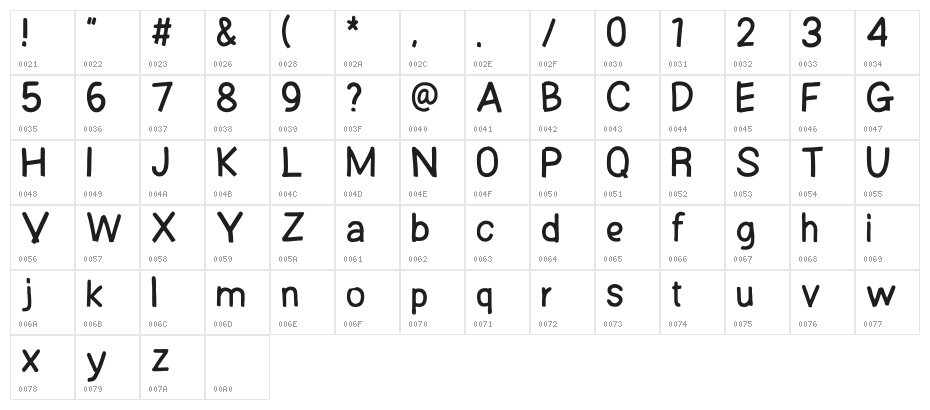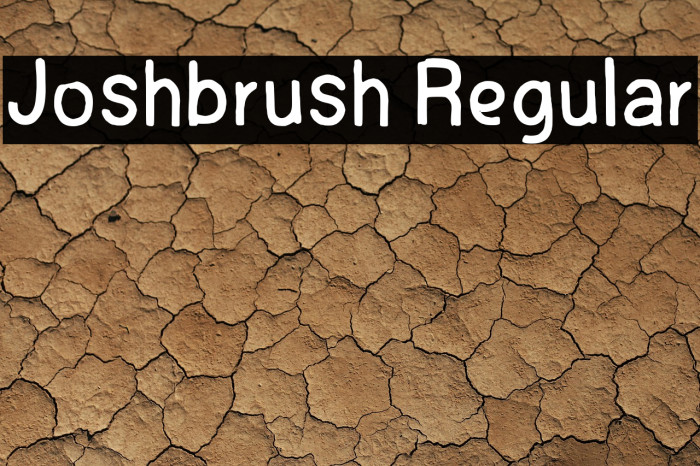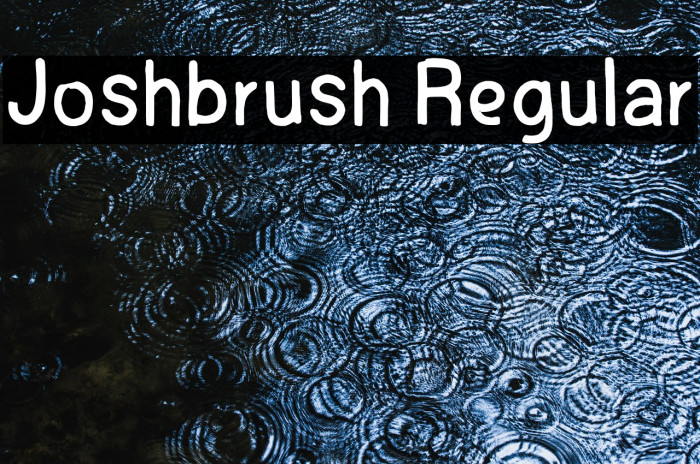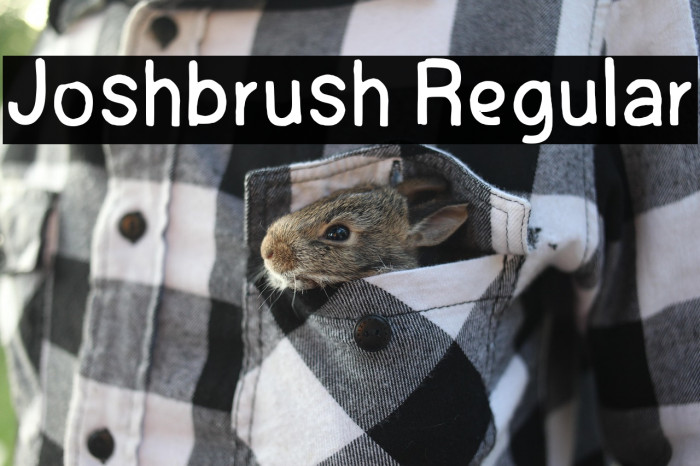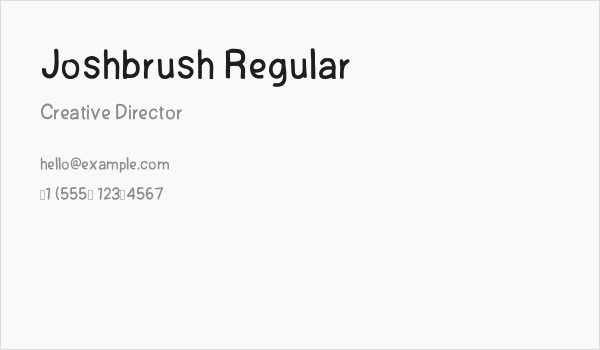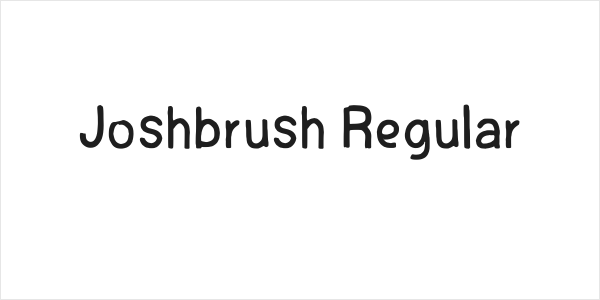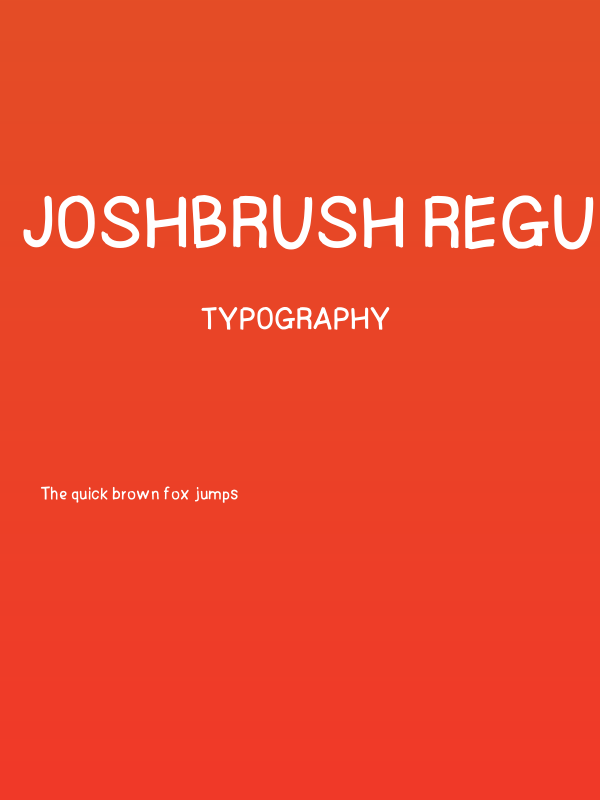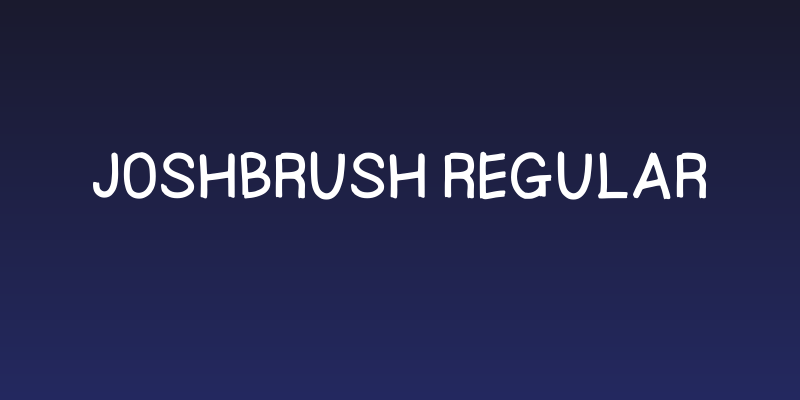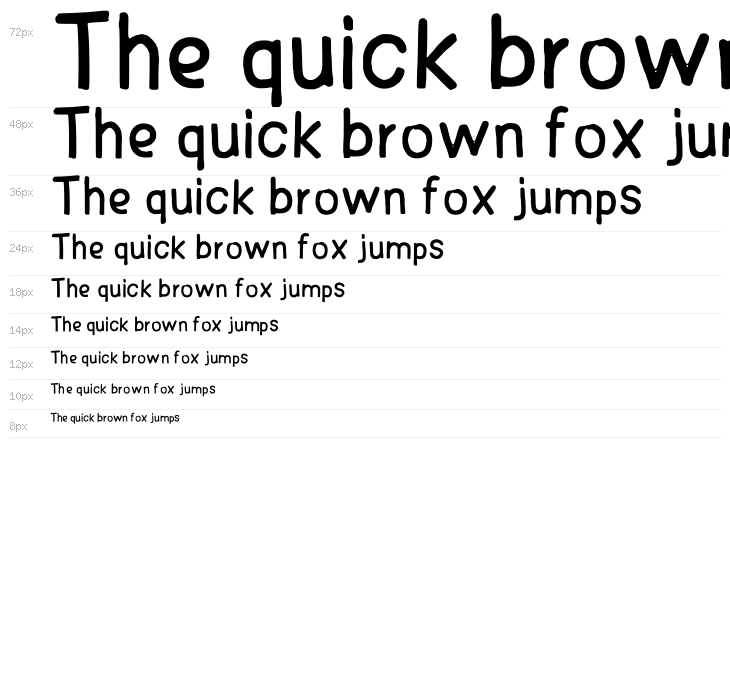
Joshbrush Regular Font
Joshbrush Regular Description
This font features a playful and casual handwritten style, characterized by its slightly irregular strokes and friendly appearance. The letters have a natural flow, with rounded edges and a consistent stroke width that gives it a relaxed and approachable feel. The uppercase and lowercase letters maintain a cohesive look, while the numerals and special characters complement the overall design. This font is ideal for projects that require a personal touch or a sense of informality, making it suitable for creative and artistic endeavors.
| Overall Style | Casual, Playful |
| Use Case | Headlines, Informal text, Creative projects |
| Proposed Projects | Ideal for greeting cards, children's books, casual branding, and social media graphics. |